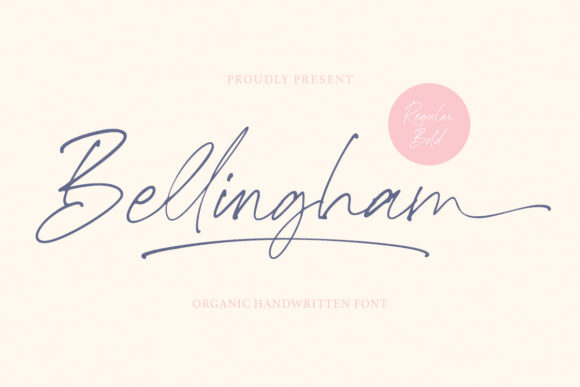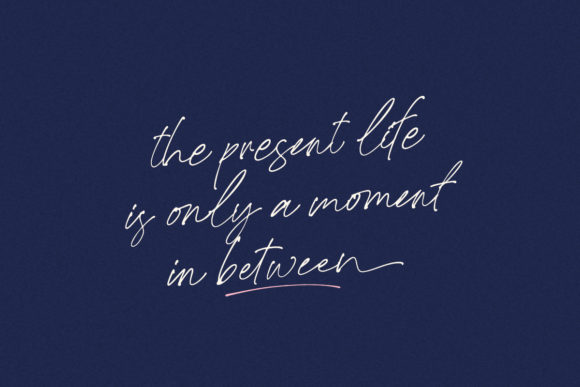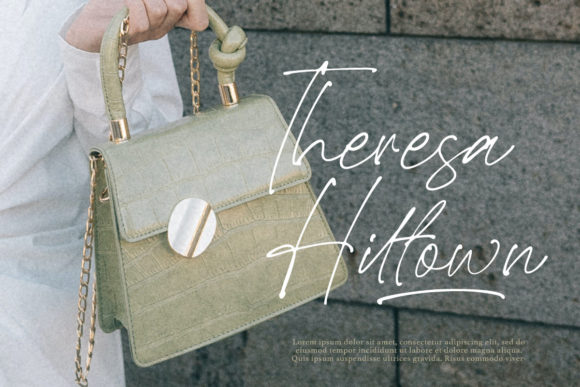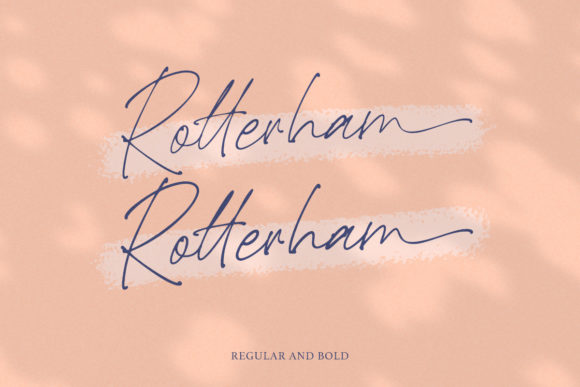
About Bellingham Script Font
Bellingham Script is a charming and organic handwritten script font that brings a delightful touch of authenticity and creativity to a wide range of design projects. Its unique appeal lies in its intricate ligatures and swashes, which add a touch of individuality and artistry to every word you type.
With its flowing and fluid letterforms, Bellingham Script is an ideal choice for creating a personalized signature that embodies your unique style and personality. Its natural and handcrafted appearance lends an air of authenticity to your branding materials, ensuring that your identity stands out in a memorable way.
When used in packaging designs, Bellingham Script adds a warm and inviting touch that resonates with consumers. Its playful yet elegant demeanor makes it well-suited for products that want to convey a sense of handcrafted quality and care.
For logos, Bellingham Script brings a fresh and original aesthetic that captures attention and leaves a lasting impression. Its dynamic strokes and carefully designed ligatures create a logo that is both memorable and distinctive, setting your brand apart from the rest.
Invitations and novels take on a whole new dimension of charm with Bellingham Script. The font’s organic flow and expressive nature infuse each word with personality and emotion, making your event invitations and literary works even more captivating.
Bellingham Script’s versatility shines through in its ability to adapt to various contexts, ensuring that it works seamlessly across different design applications. Its ligatures and swashes provide endless possibilities for creative typography that adds a touch of whimsy and sophistication to your projects.
In essence, Bellingham Script is a font that celebrates the art of handwriting in the digital realm. Its ligatures and swashes make each word a unique piece of art, while its natural elegance and versatility make it a valuable asset for designers looking to create truly exceptional designs.